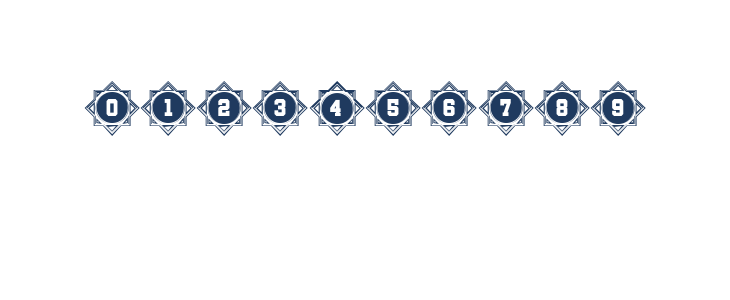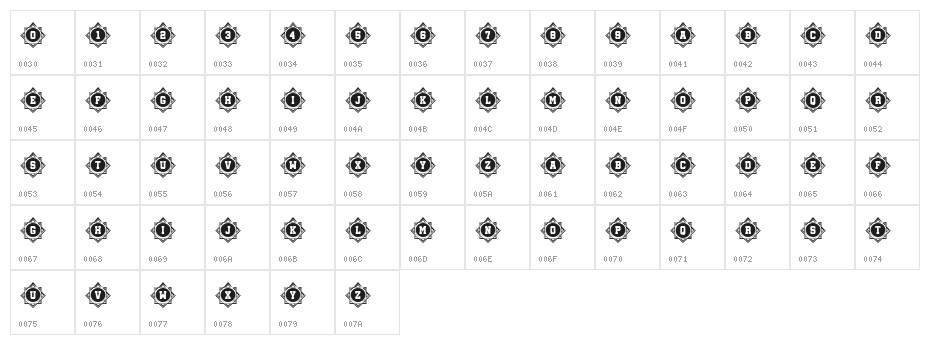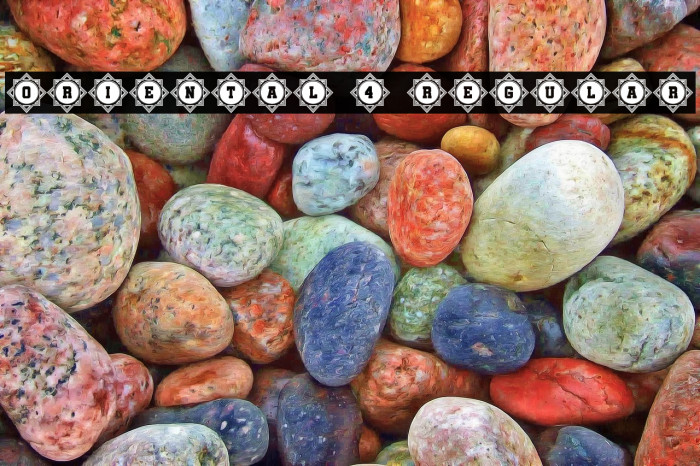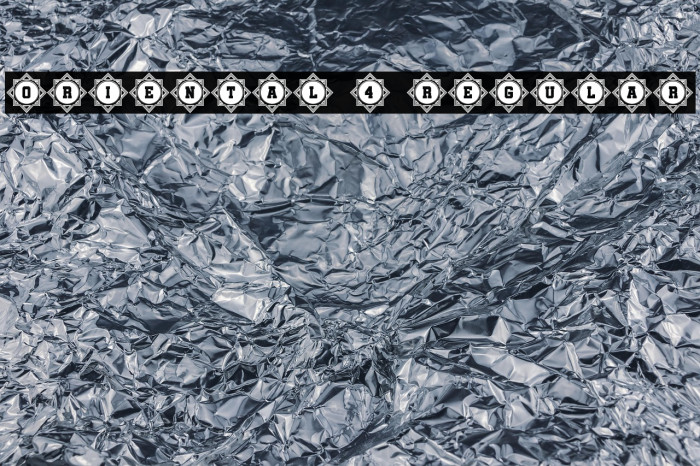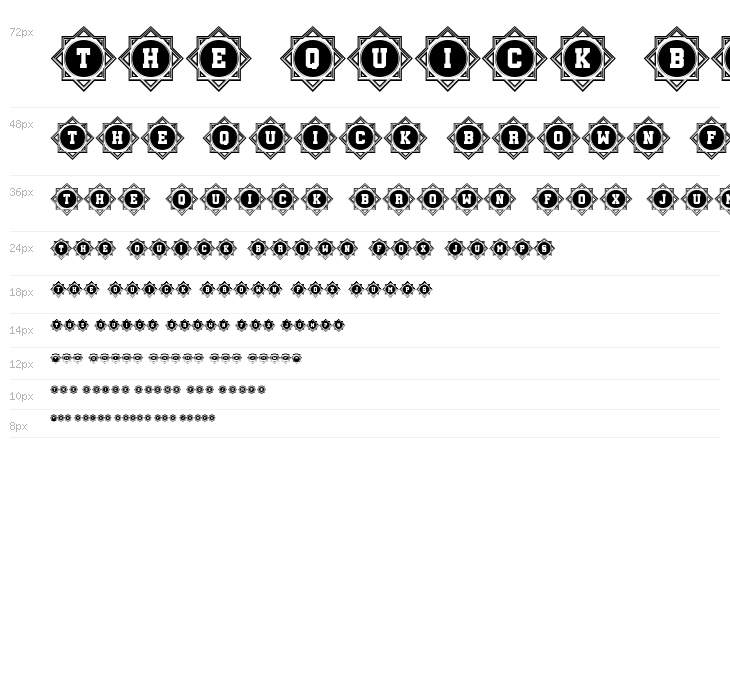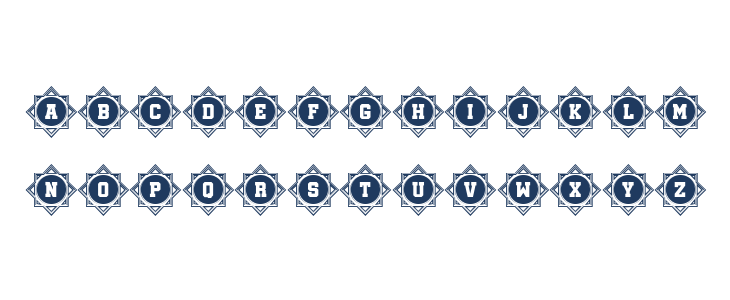
Oriental 4 Regular Font
Oriental 4 Regular Description
This font features a unique and decorative style, characterized by its bold and ornate design. Each character is enclosed within a star-like geometric shape, adding a distinct flair and making it highly decorative. The letters are uppercase and bold, with a consistent thickness throughout, providing a strong visual impact. The numbers and special characters follow the same stylistic approach, ensuring uniformity across all elements. The overall design is reminiscent of traditional motifs, giving it an exotic and artistic appeal.